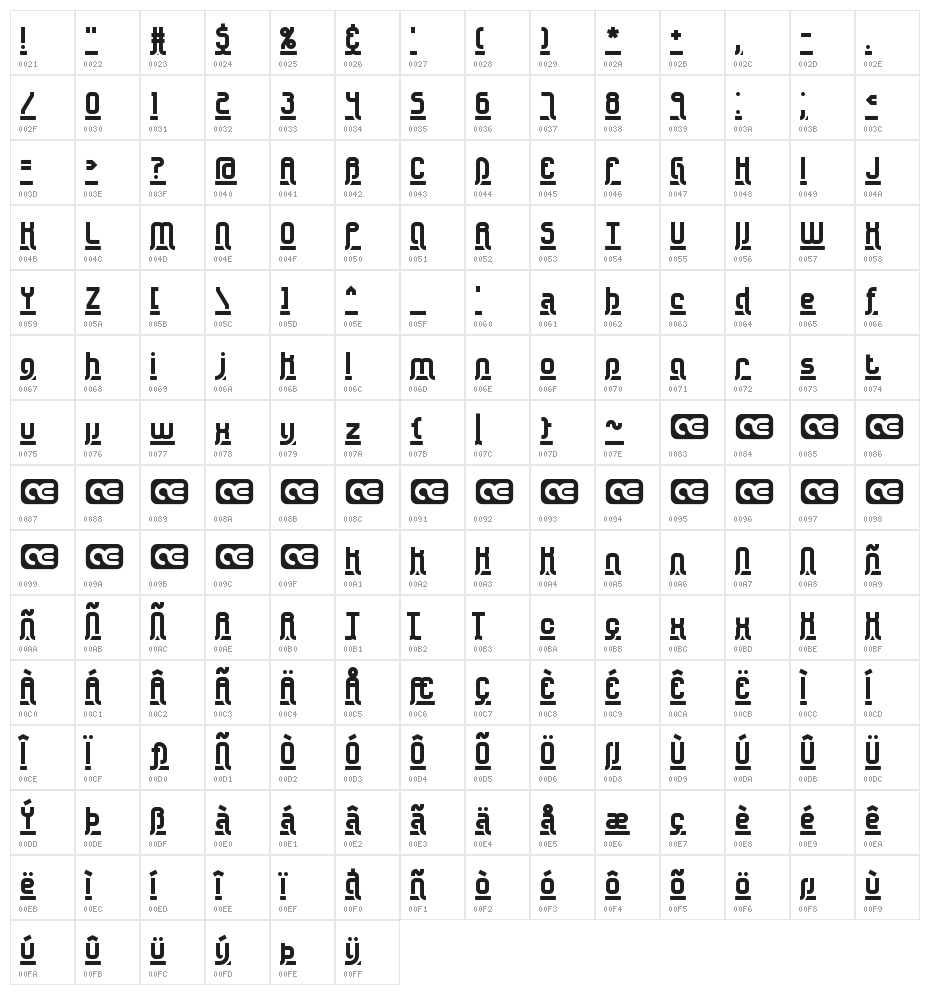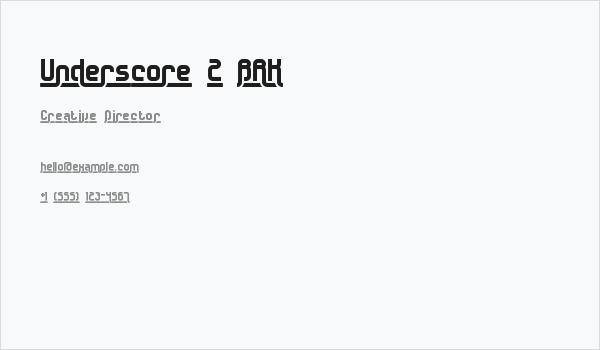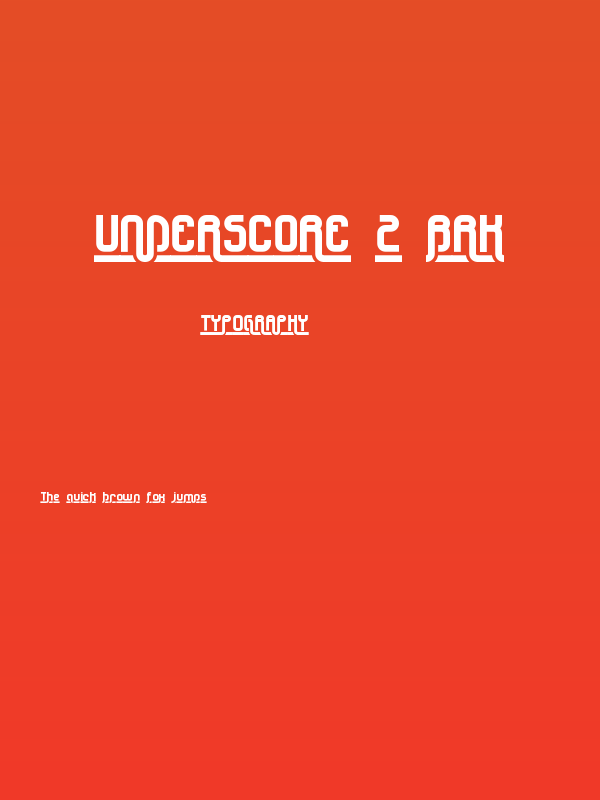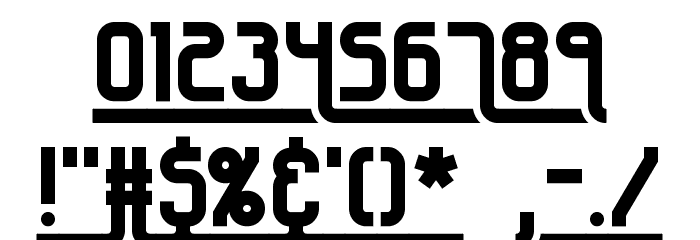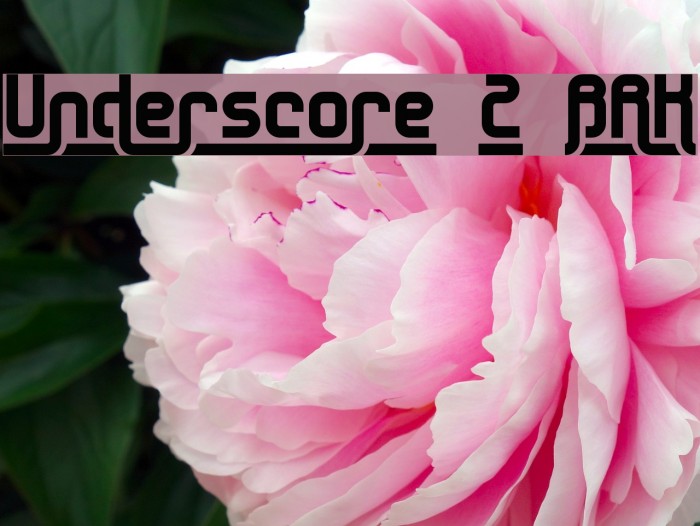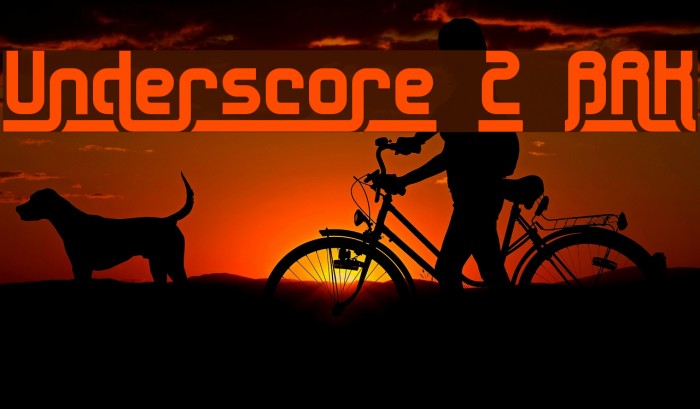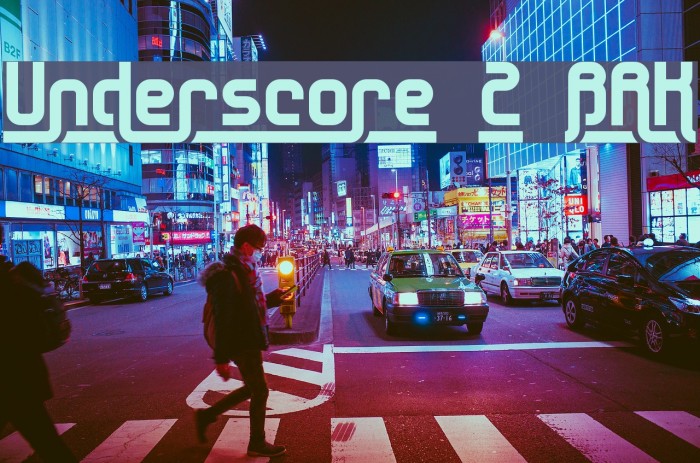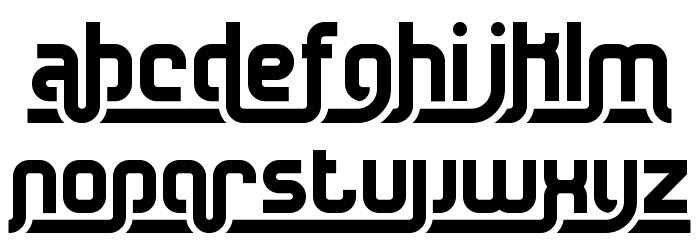
Underscore 2 BRK Font
Underscore 2 BRK Description
This font features a bold, geometric design with a unique underscore element integrated into each character, creating a continuous line effect. The uppercase and lowercase letters maintain a consistent width, giving the font a monospaced appearance, though it is not strictly monospaced. The characters are constructed with thick, uniform strokes, contributing to a high contrast between the letterforms and the negative space. The overall style is modern and futuristic, with a distinctive, tech-inspired aesthetic. The numbers and special characters follow the same design principles, ensuring visual harmony across all glyphs.
| Proposed Projects | Ideal for technology branding, futuristic posters, digital interfaces, and video game titles. |